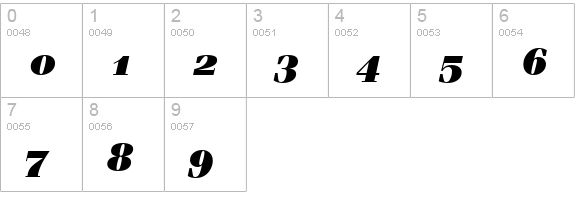
Ferrara-Osf-Ultra-Italic is an extreme-weight, display, italic variant in the Ferrara typeface family \xE2\x80\x94 well suited to extreme display use where maximum visual weight is required.
The Ferrara-Osf-Ultra-Italic font exudes a sense of elegance and sophistication with its sleek and stylish design. Its ultra-italic style adds a touch of flair and uniqueness to any project, making it the perfect choice for those looking to make a bold statement. This font is free to download at FontsMarket.com, where you can easily access and incorporate this eye-catching typeface into your designs. Whether you're working on a creative project or looking to elevate your branding, the Ferrara-Osf-Ultra-Italic font is sure to impress with its modern and refined aesthetic. Download it now and let your creativity shine with this stunning typeface.